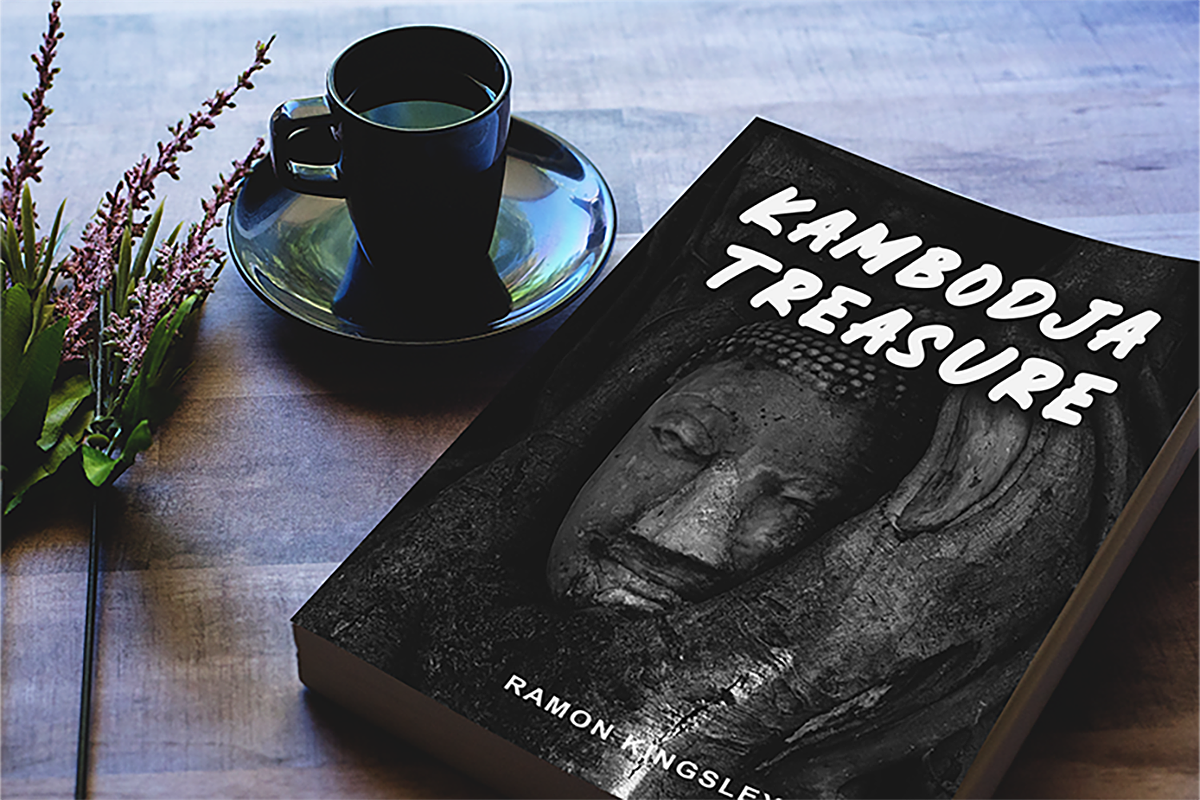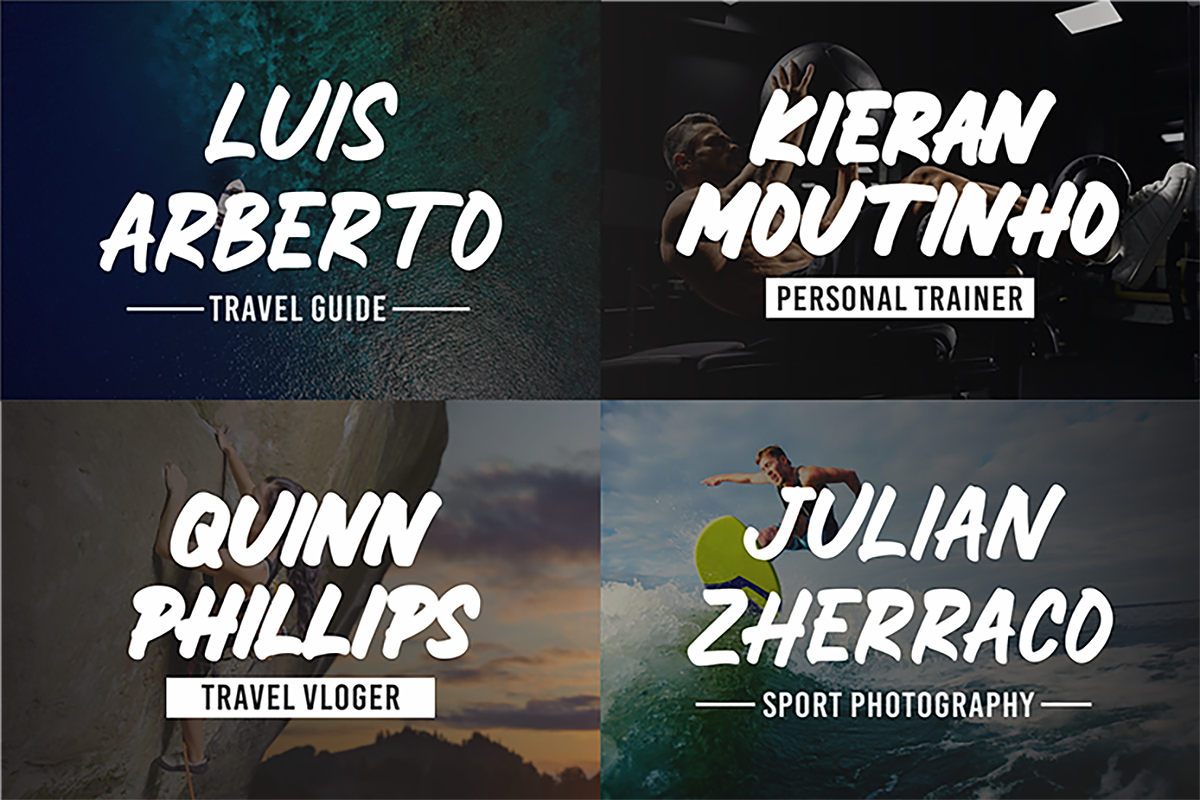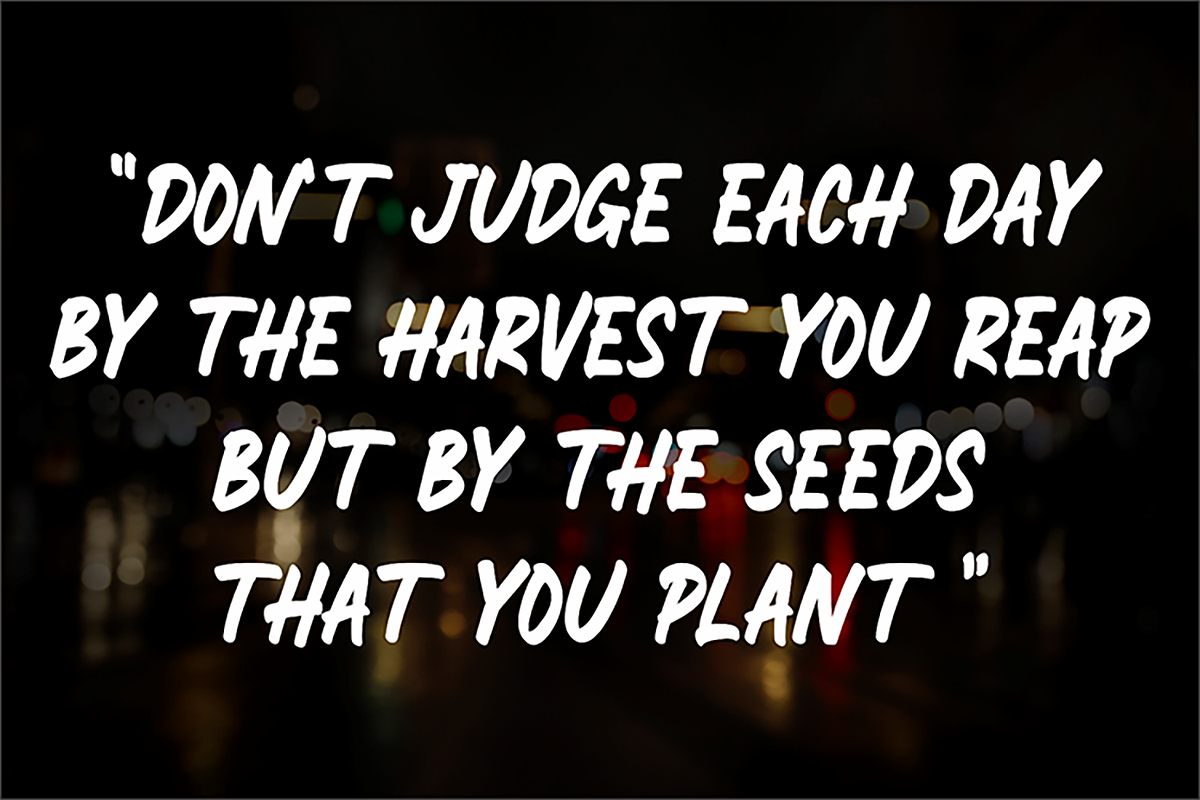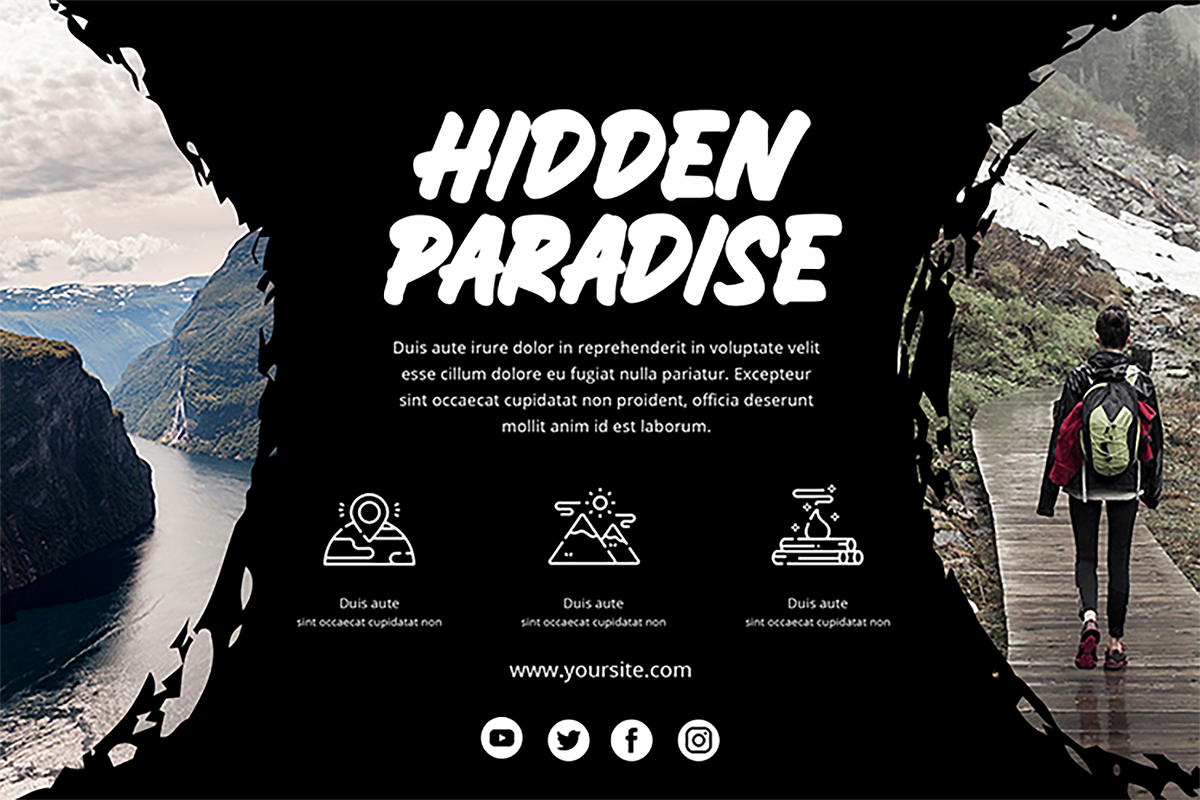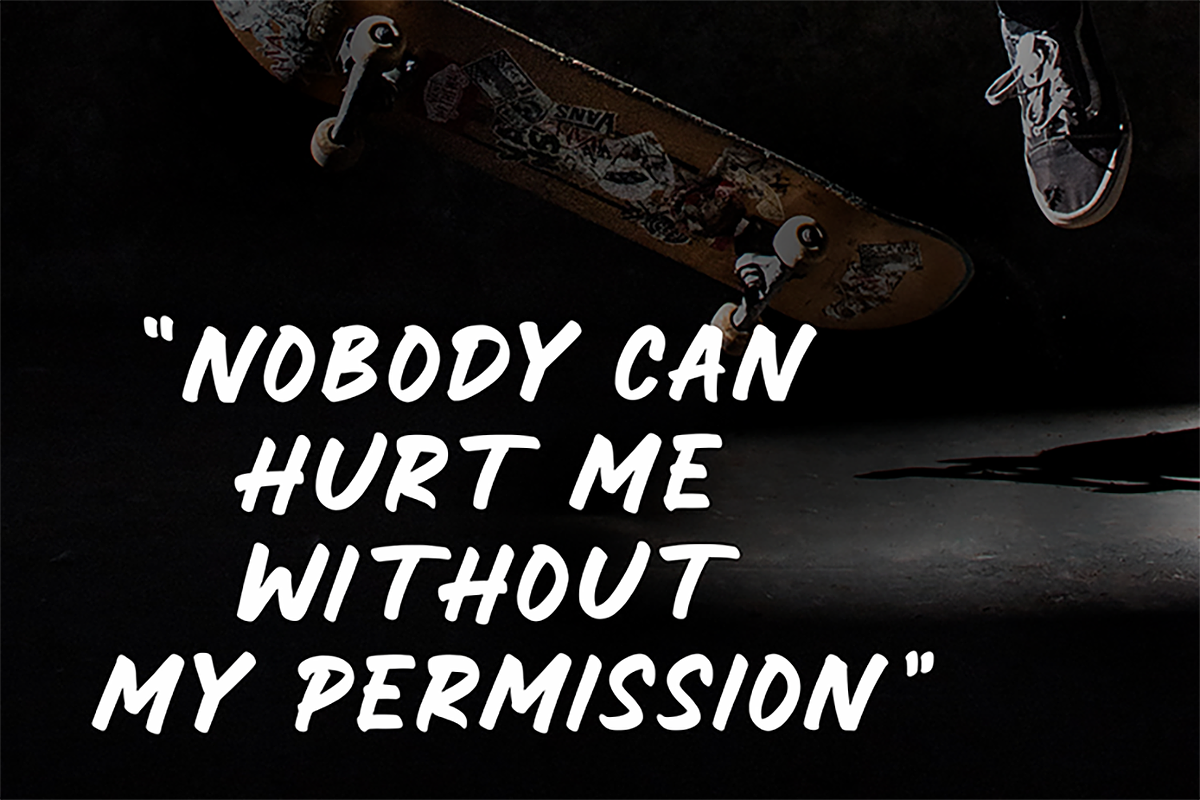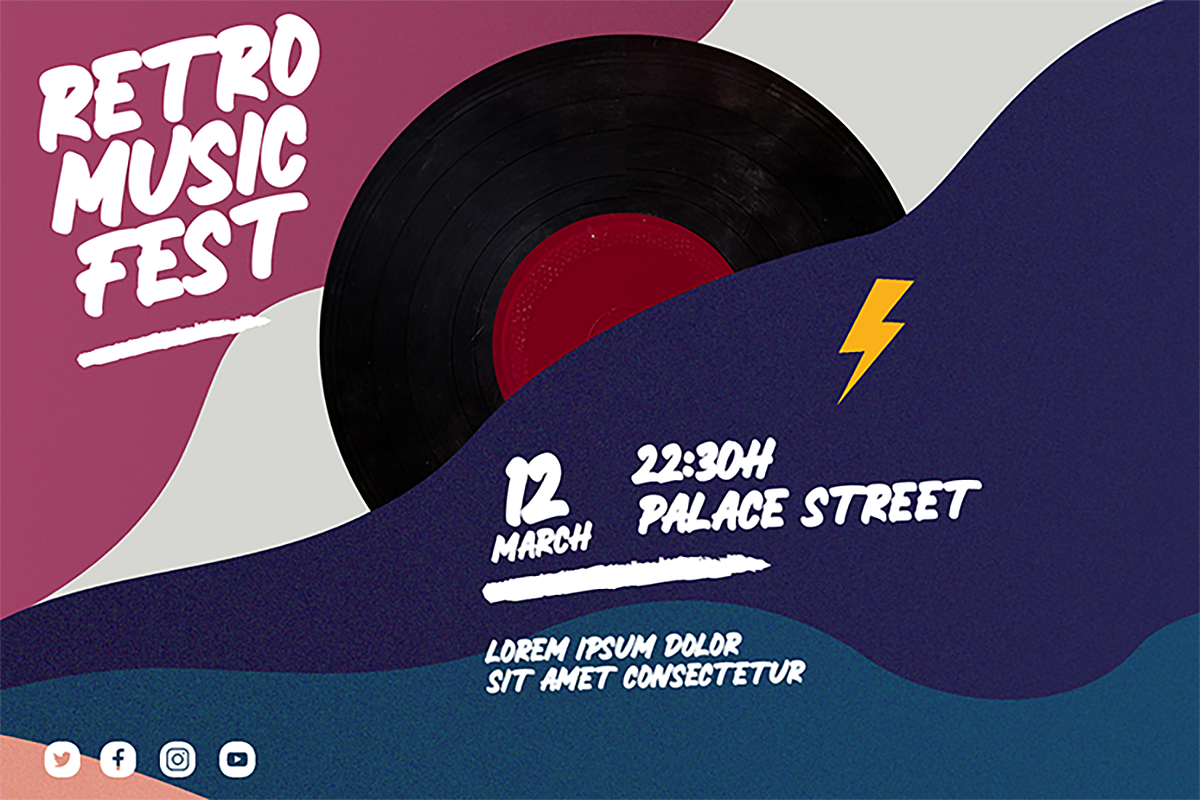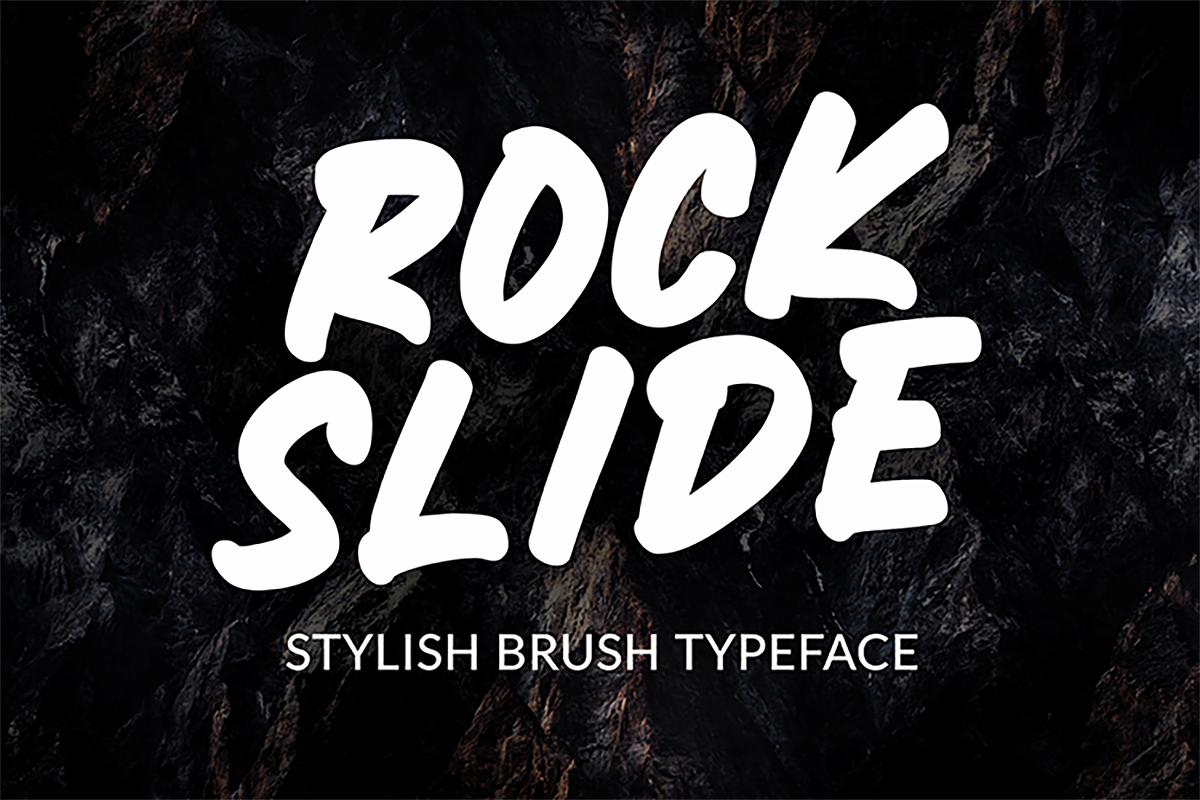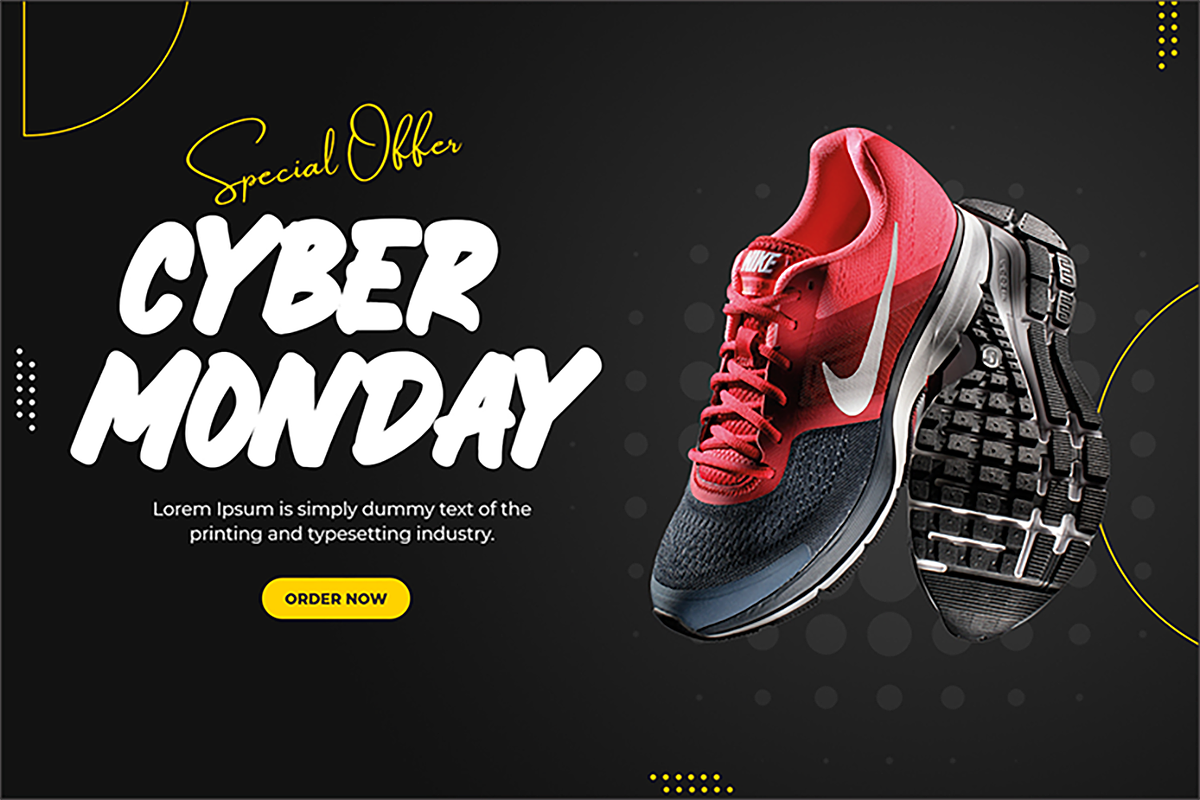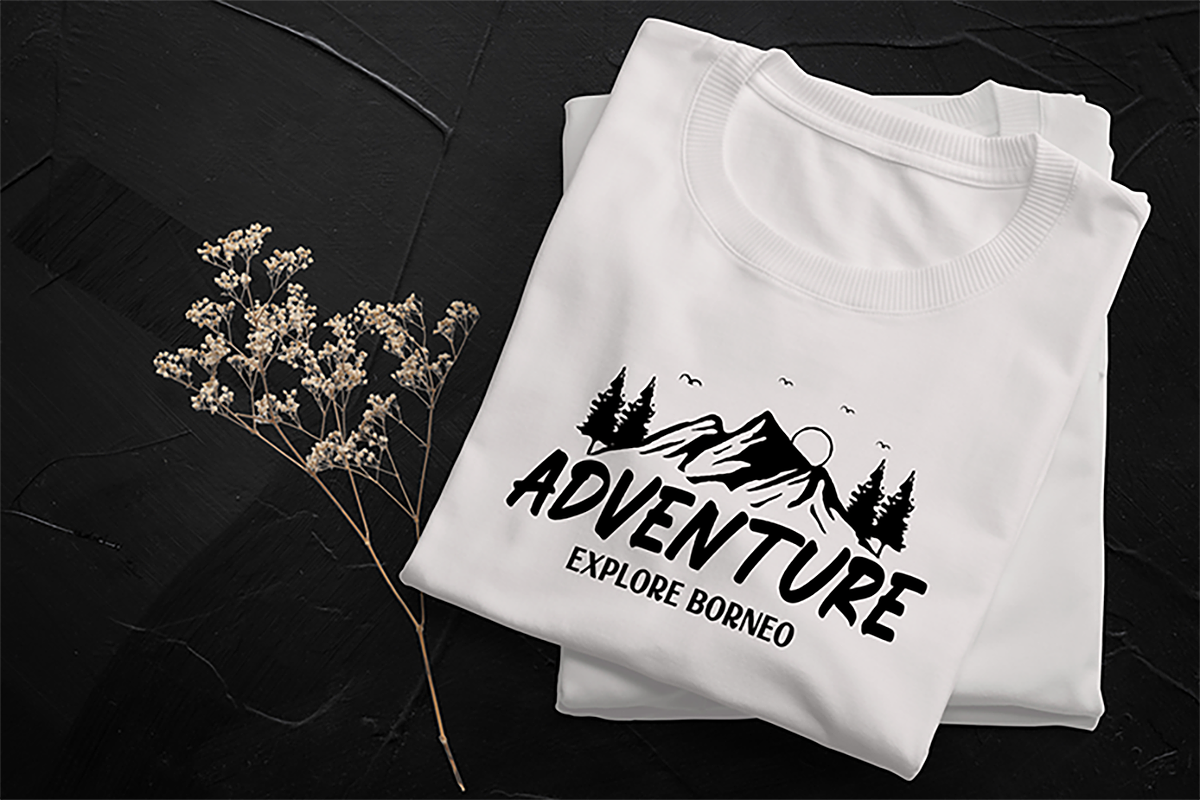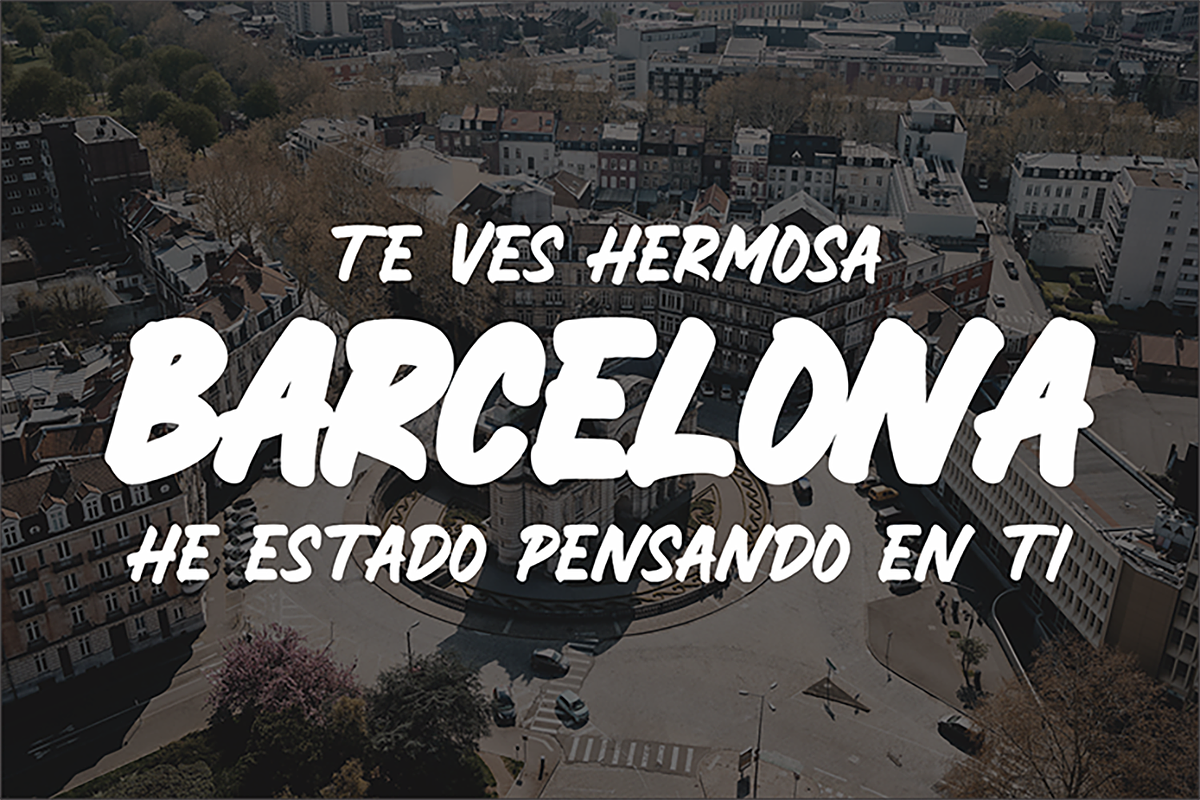
ROCKSLIDE
Hi guys, Proudly presenting ROCKSLIDE. It is stylish marker font. It’s in two style: Regular and Bold.
ROCKSLIDE was designed to make logotype and lettering for your brands. And it’s would perfect for t-shirt/ apparel, promotional materials, sports, music festival, quotes, special events, or anything.